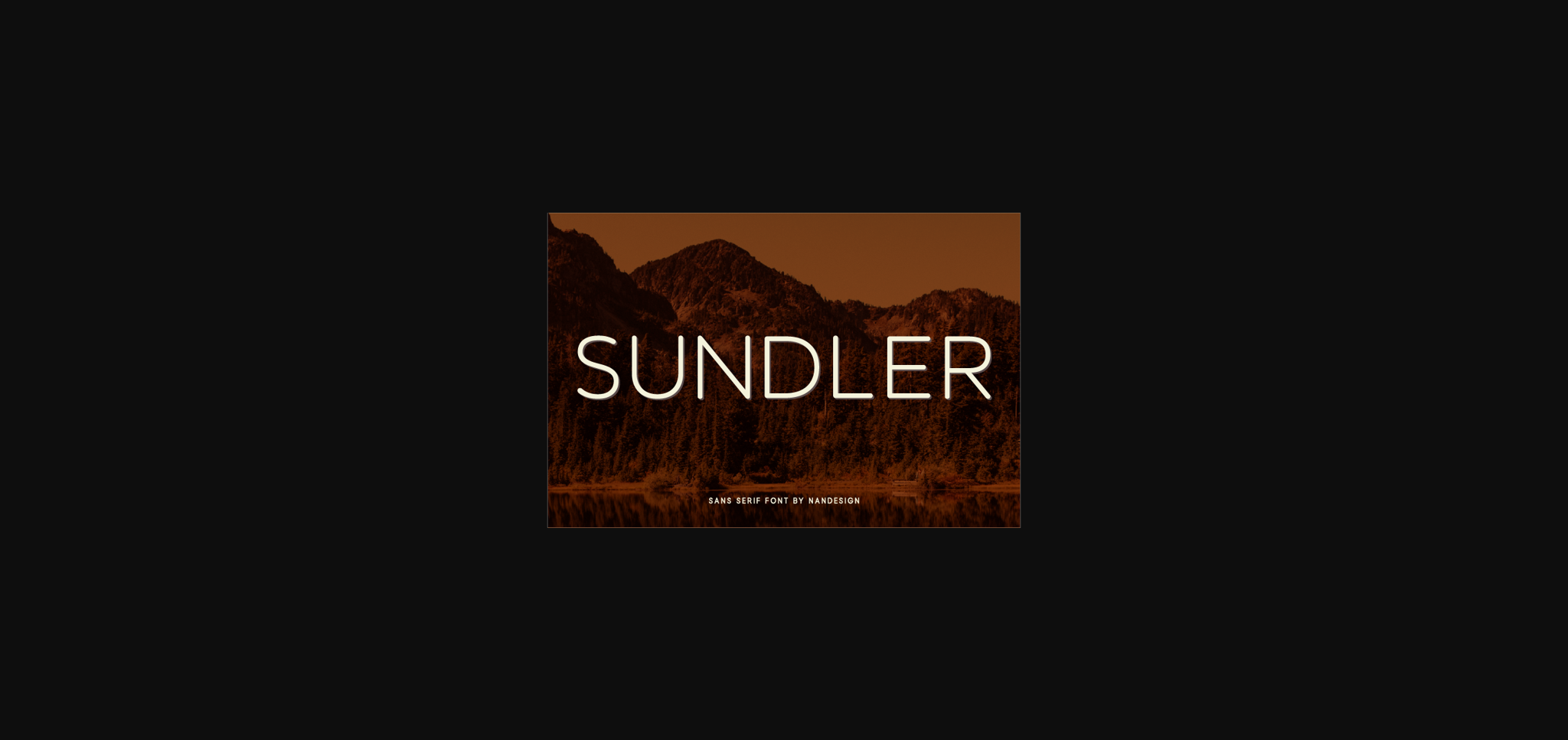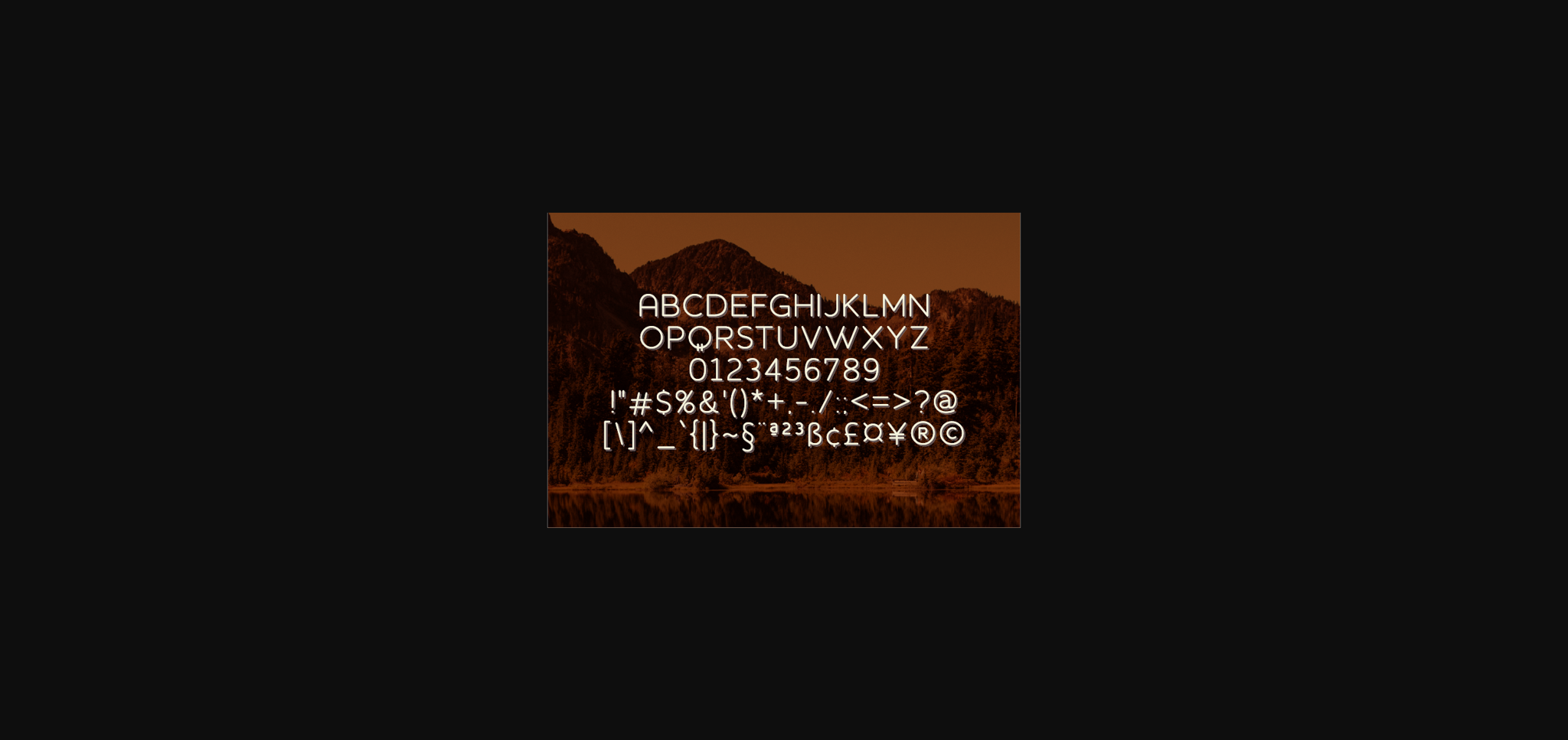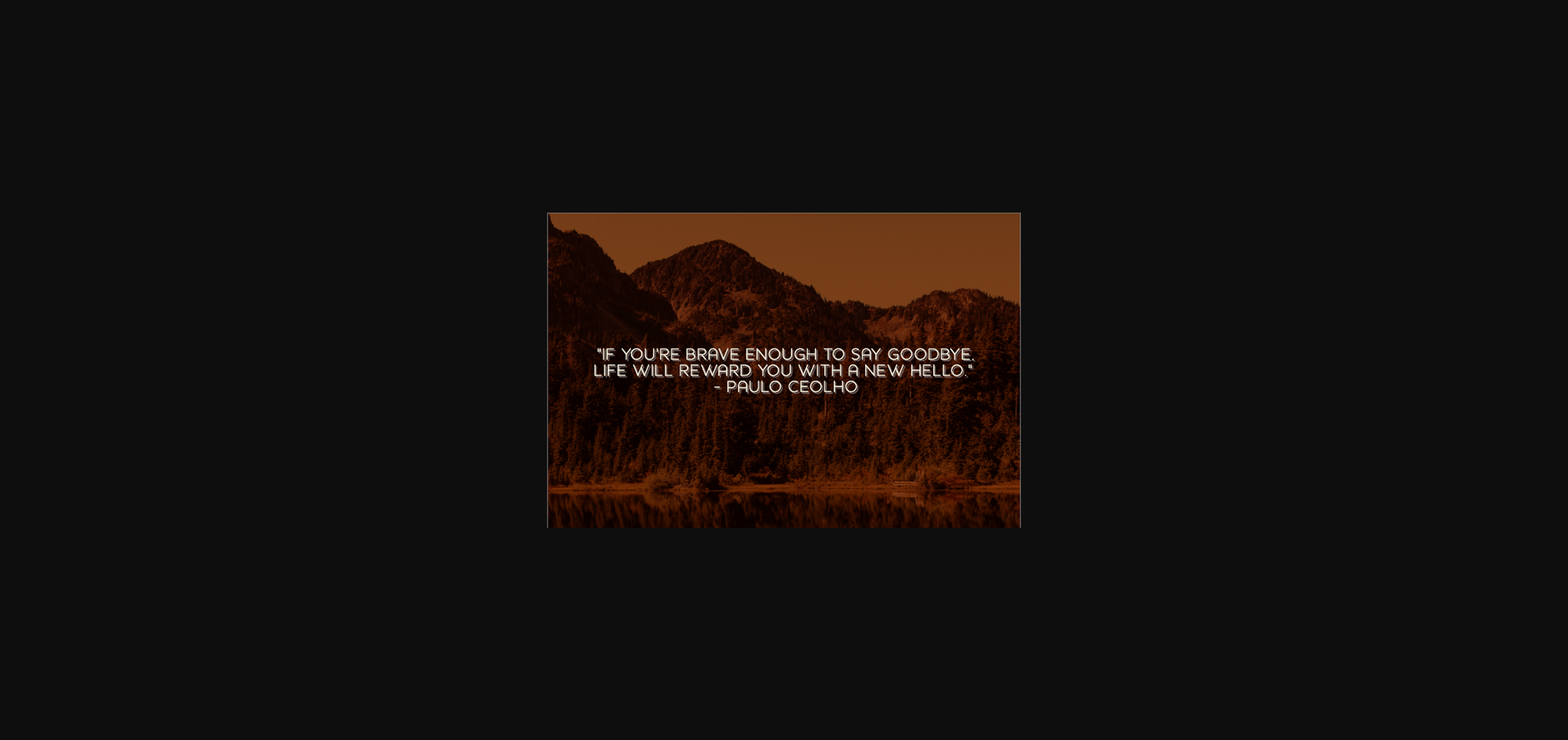
HomeSans Serif FontsSundler Font Sans Serif Fonts Sundler Font FacebookTwitterPinterestWhatsApp 1 of 5 ... Sundler Font Poster 2... Sundler Font Poster 3... Sundler Font Poster 4... Sundler Font Poster 5... About Sundler Font Sundler is a tall and thin sans serif font. Its friendly feel makes this font incredibly versatile, fitting a wide range of contexts. DOWNLOAD NOW People also explored Salterego Font Cherry Lemonade Font Garden Font Pink Blossom Font Heather Prism Lilac Bella Canvas 3001 Retha Font Brittania Font Piano Music Font Dateline Font 149 0 TagsSundlerSundler Font Previous articleEcomise FontNext articleFocer Font LEAVE A REPLY Cancel reply Comment: Please enter your comment! Name:* Please enter your name here Email:* You have entered an incorrect email address! Please enter your email address here Website: Save my name, email, and website in this browser for the next time I comment. Personal Use Free Artisan Signature Personal Use Free Read more about this font Love Story Personal Use Free Read more about this font Sui Genesis Personal Use Free Read more about this font Over the Top Personal Use Free Read more about this font BLOG Elegant Wedding Invitation Fonts – Handwritten & Script Fonts Elegant Wedding Invitation Fonts Your wedding day is one of the most important moments of your life, and every detail matters—including your invitation design. Our... Top 7 Google Fonts Alternatives for Faster and Privacy-Friendly Web Design (2025) Best Fonts for YouTube Videos: Make Your Thumbnails Stand Out Transform Your Website: Elevate Your Typography with 7 Best Web Font Generators